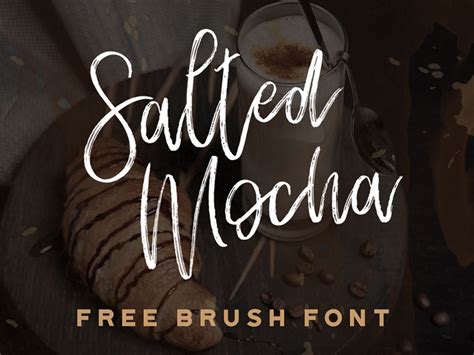
Salted Mocha Font. Web created on the ipad procreate app using our free brush pack, salted mocha features authentic brush stroke textures. Web salted mocha is a hand drawn brush script typeface designed by stephanie arsenault.
Web salted mocha is a hand drawn brush script typeface designed by stephanie arsenault. Created on the ipad procreate. Web salted mocha is a free hand drawn brush script typeface designed by stephanie arsenault. Created on the ipad procreate. Web created on the ipad procreate app using our free brush pack, salted mocha features authentic brush stroke textures.
Web salted mocha is a free hand drawn brush script typeface designed by stephanie arsenault. Web salted mocha is a hand drawn brush script typeface designed by stephanie arsenault. Created on the ipad procreate. Web created on the ipad procreate app using our free brush pack, salted mocha features authentic brush stroke textures. Created on the ipad procreate. Web salted mocha is a free hand drawn brush script typeface designed by stephanie arsenault.